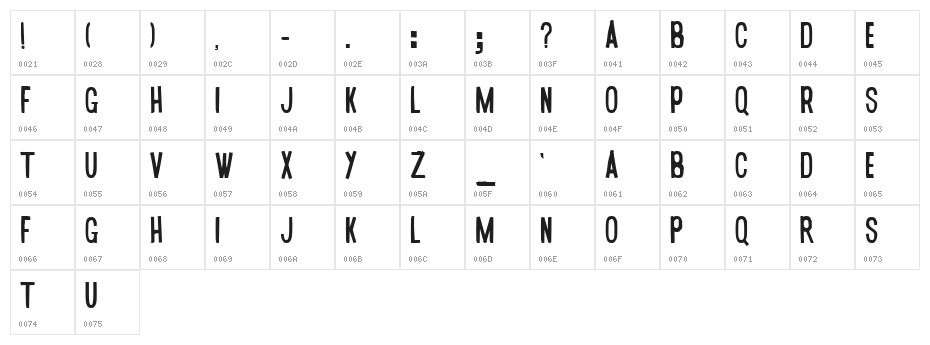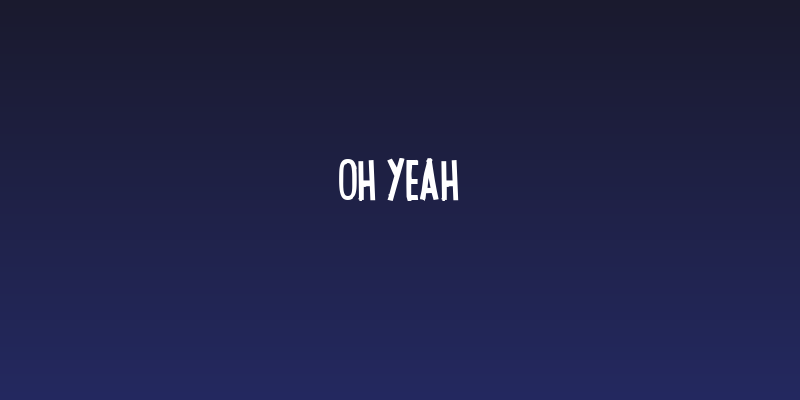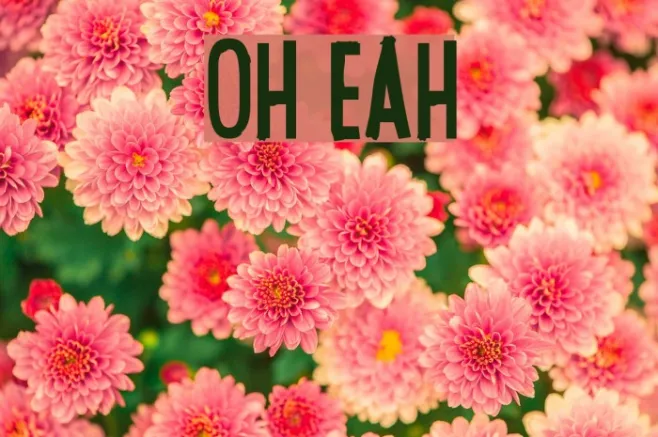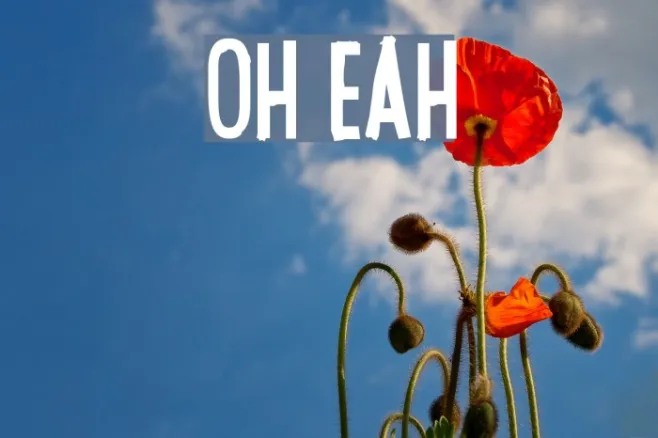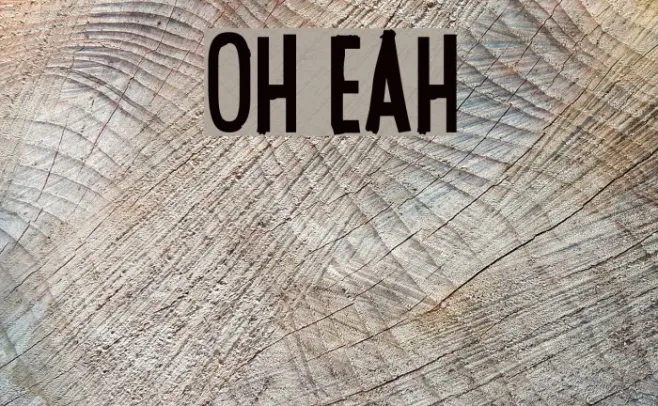
oh yeah Font
oh yeah Description
This font features a bold and dynamic style with a slightly distressed appearance, giving it a handcrafted and organic feel. The uppercase letters are tall and narrow, with varying stroke thickness that adds a sense of movement and energy. The characters have a playful yet rugged look, making them stand out in any design. The font lacks lowercase letters, focusing on a strong uppercase presence. The special characters are minimal, aligning with the overall bold aesthetic. This font is ideal for projects that require a strong visual impact and a touch of personality.